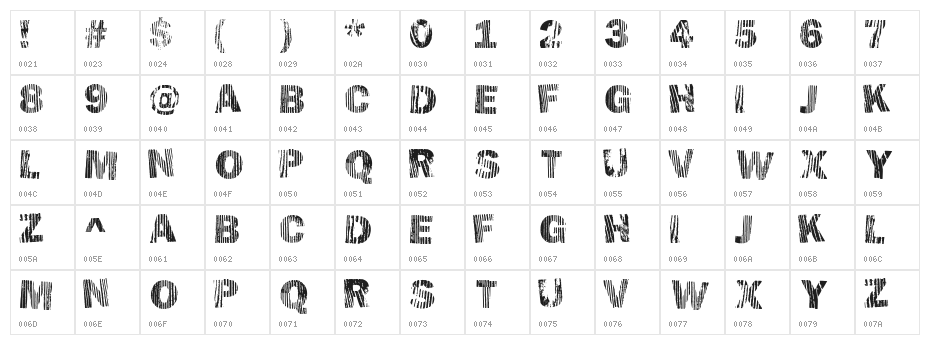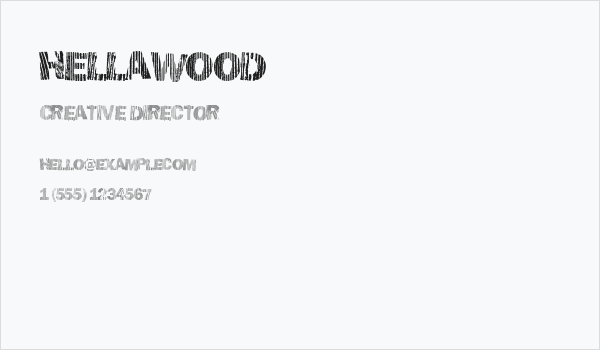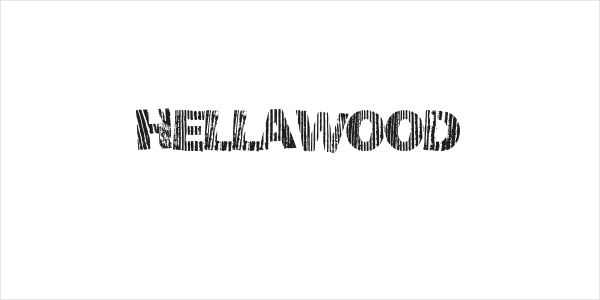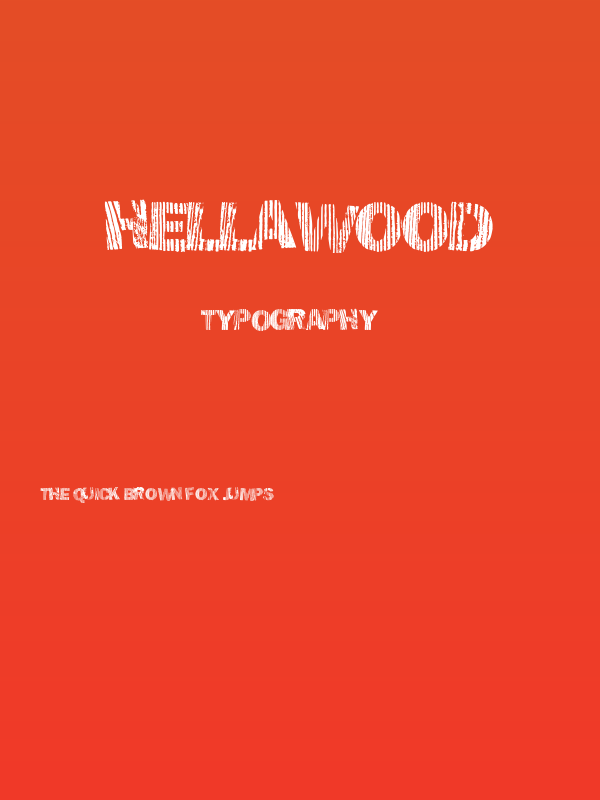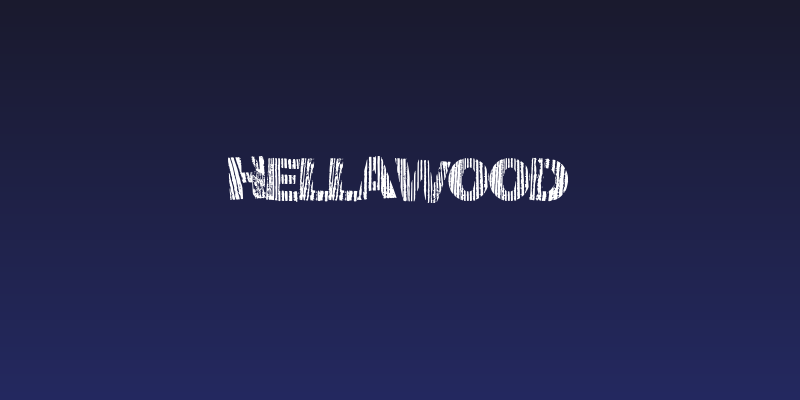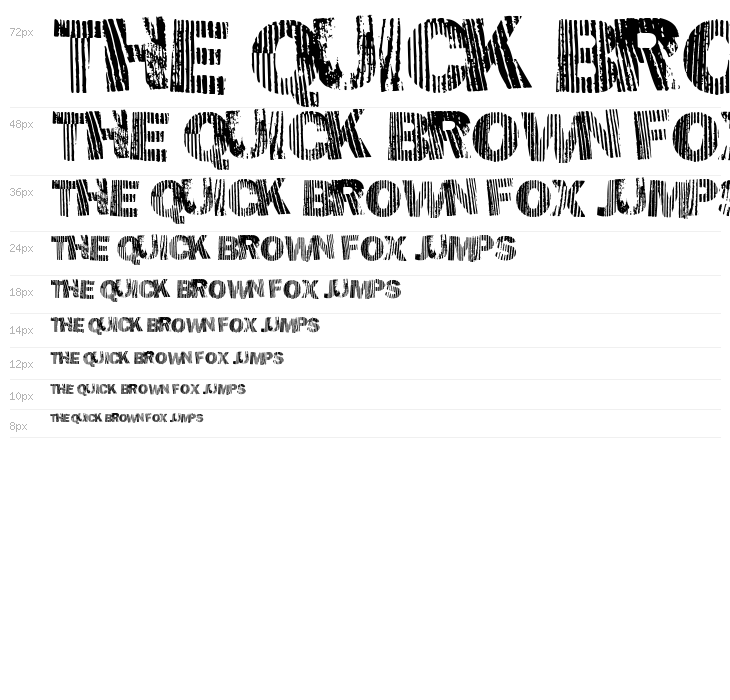
Hellawood Font
Hellawood Description
This font features a distressed, grunge style with a textured appearance that mimics the look of worn-out or weathered surfaces. The characters are bold and impactful, with irregular lines and a rough, uneven finish that adds a sense of ruggedness and authenticity. The uppercase and lowercase letters maintain a consistent style, while the numbers and special characters carry the same distressed aesthetic. This font is ideal for projects that require a bold statement or a vintage, industrial feel.
| Overall Style | Vintage, Grunge |
| Proposed Projects | Ideal for posters, album covers, branding for edgy or vintage-themed products, and any design needing a bold, rugged look. |